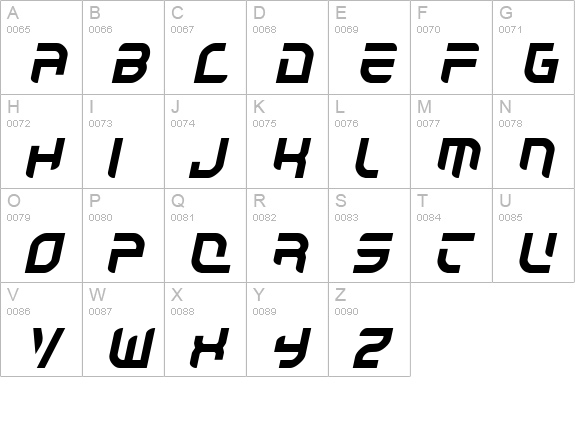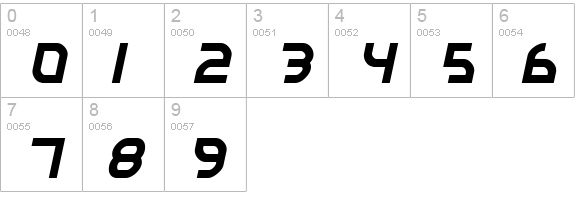
Autobahn Font Details
Autobahn font is a sleek and modern typeface that exudes sophistication and style. Its clean lines and geometric shapes make it perfect for a wide range of design projects, from branding to editorial layouts. The font's sharp angles and distinct letterforms give it a unique and contemporary look that is sure to make a statement. What's even better is that Autobahn font is completely free to download at FontsMarket.com. This means you can add this stylish font to your collection without any cost, making it a valuable resource for designers and creatives alike. With its versatility and eye-catching design, Autobahn font is sure to elevate your projects and help you stand out from the crowd.